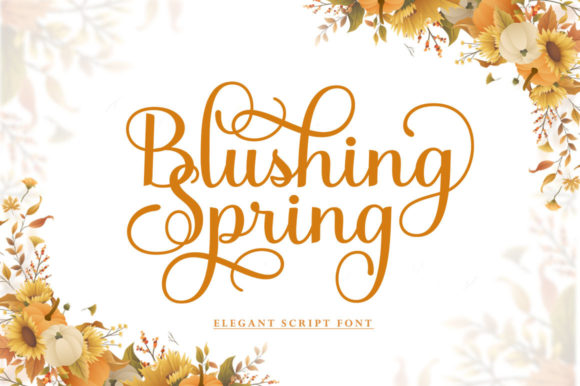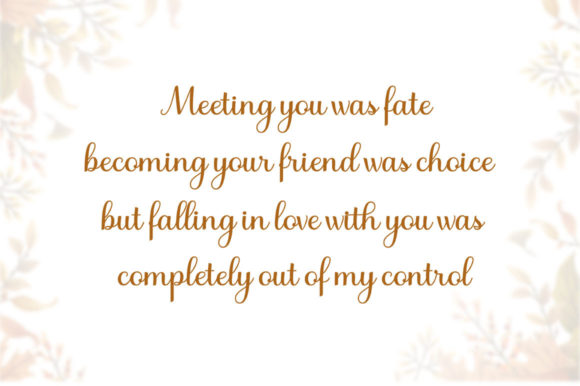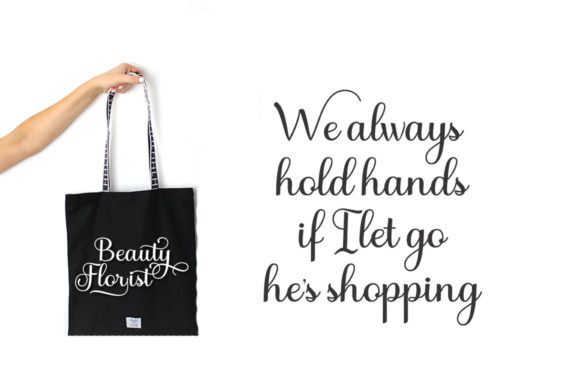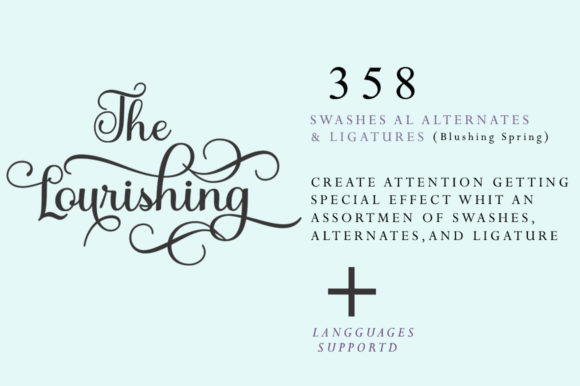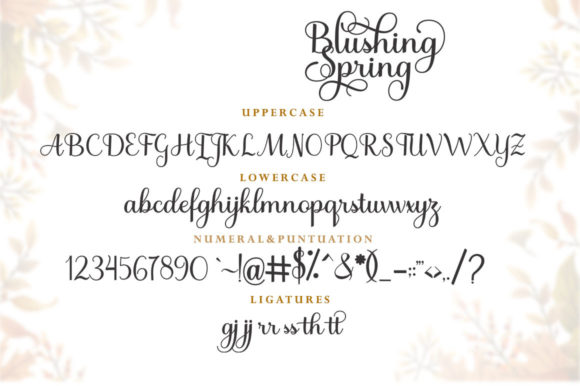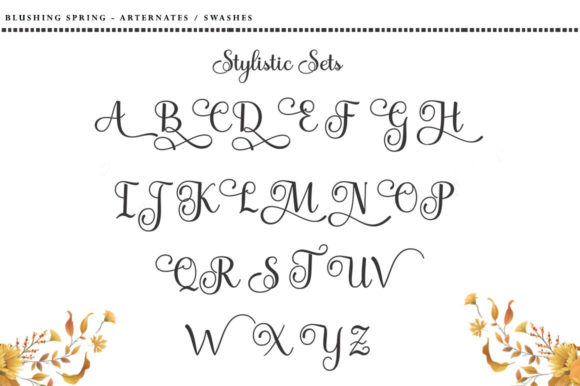
About Blushing Spring Font
Blushing Spring is a romantic and sweet calligraphy typeface with characters that dance along the baseline. It will add a luxury spark to any design project that you wish to create! This font is PUA encoded which means you can access all of the amazing glyphs and ligatures with ease!